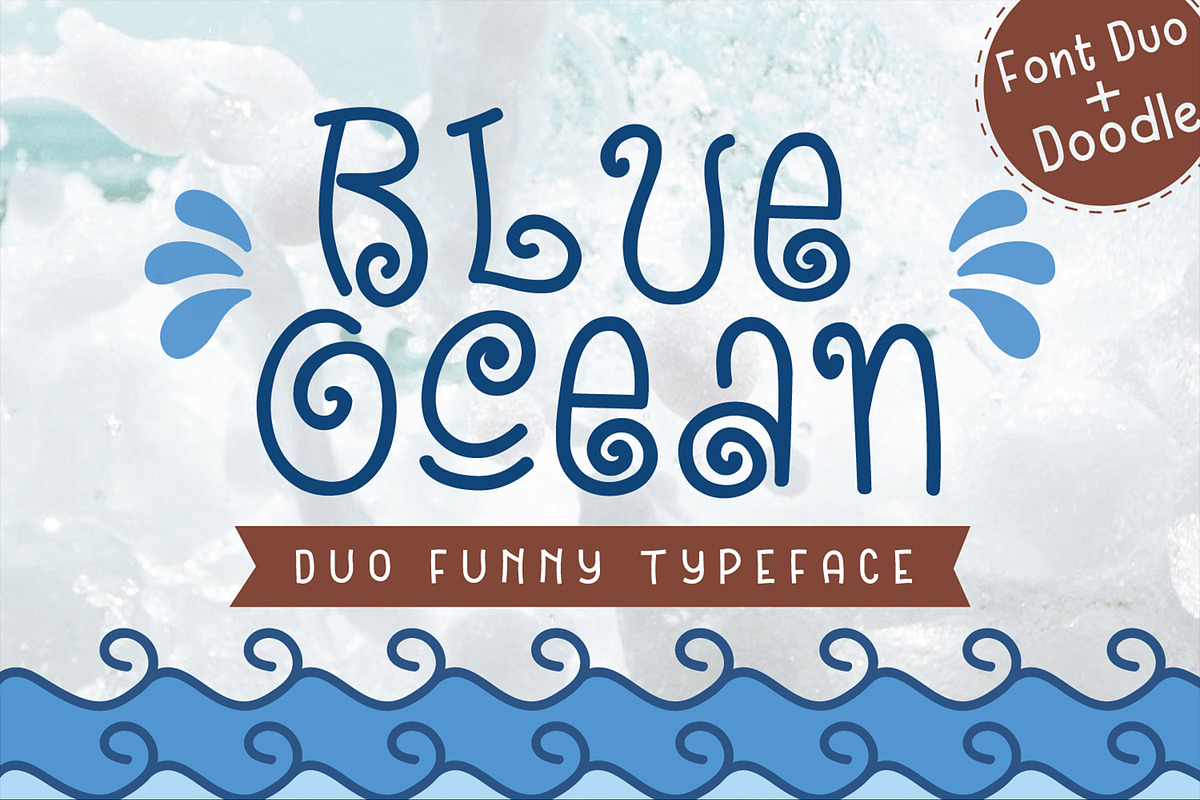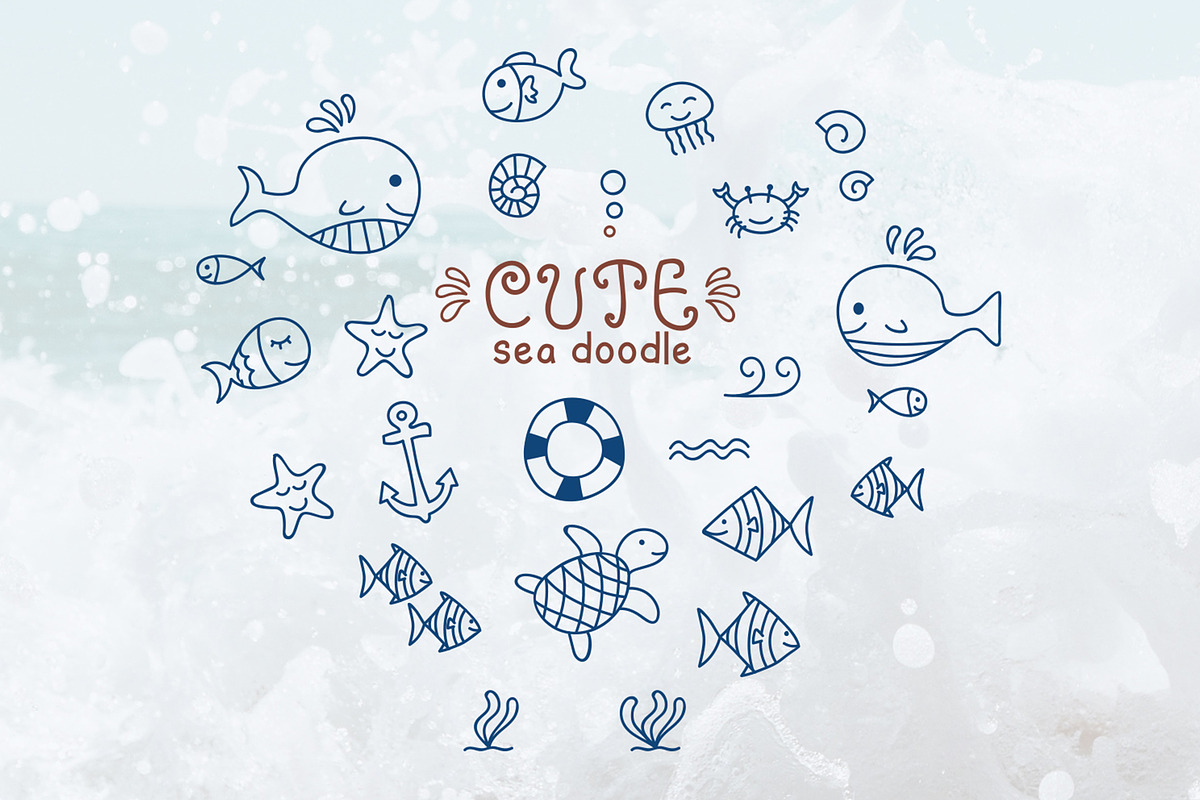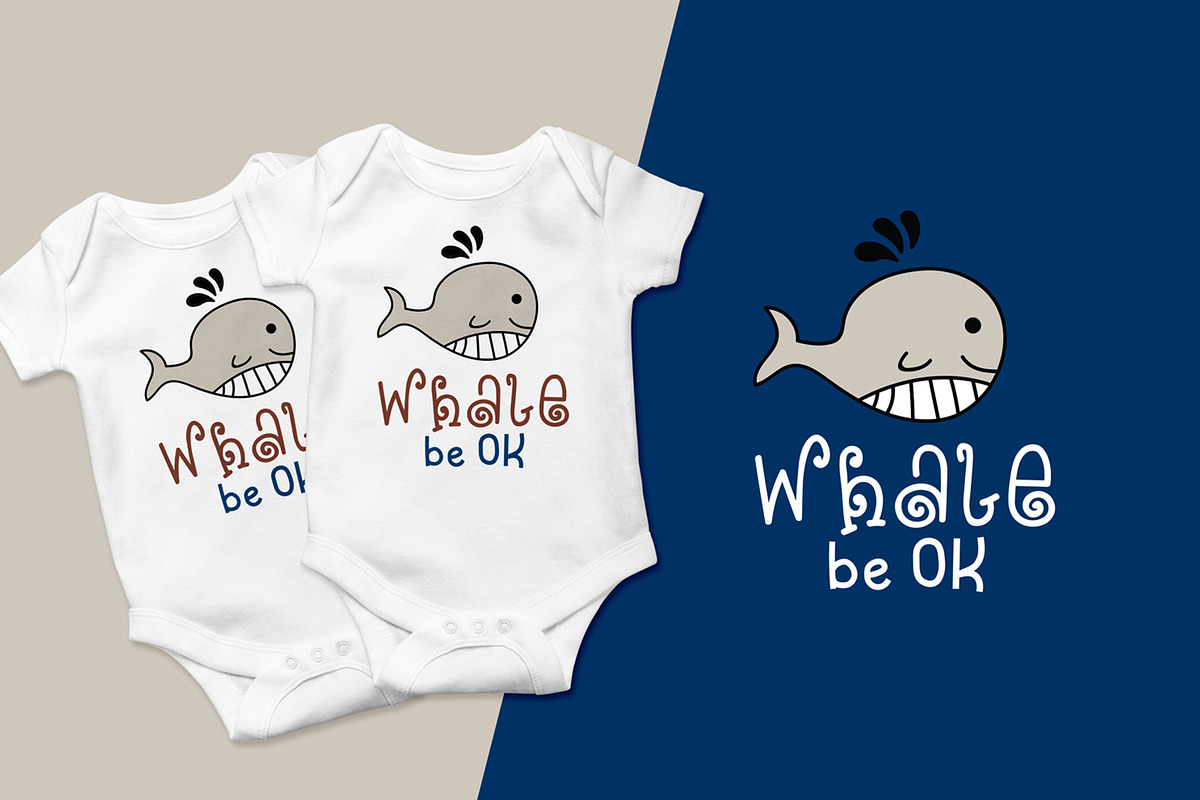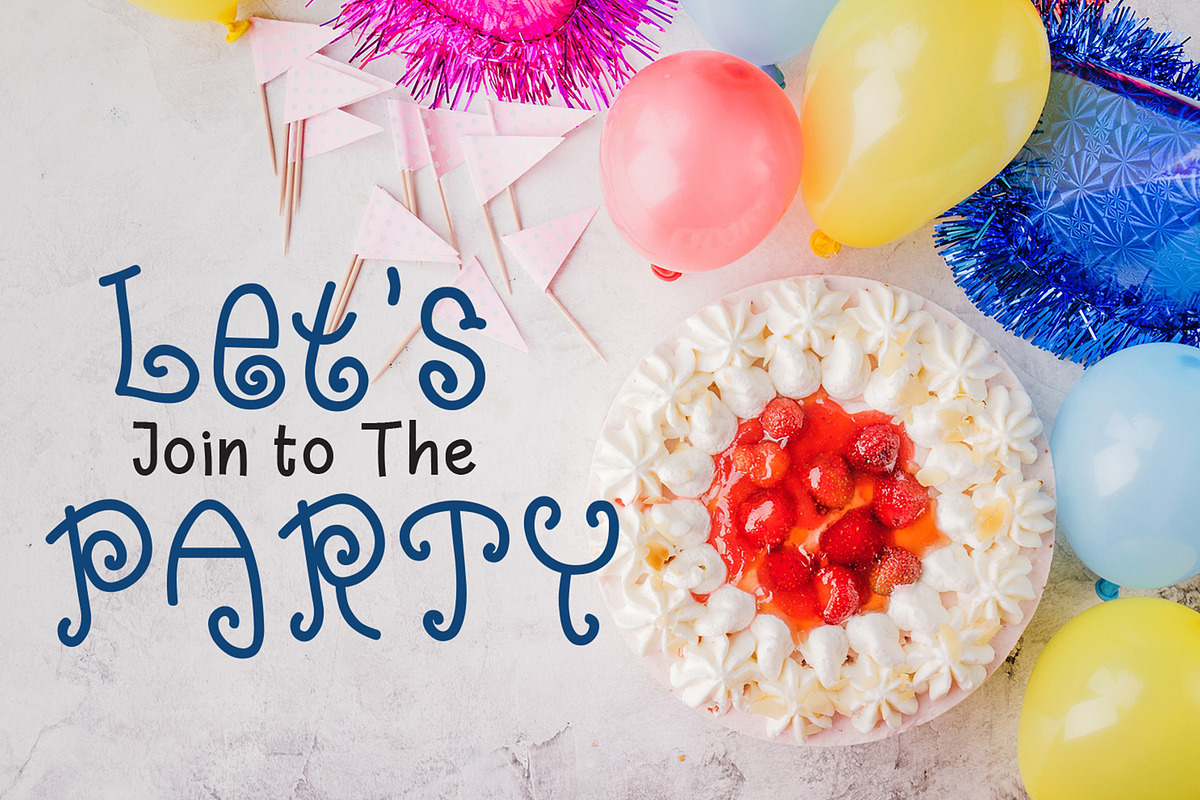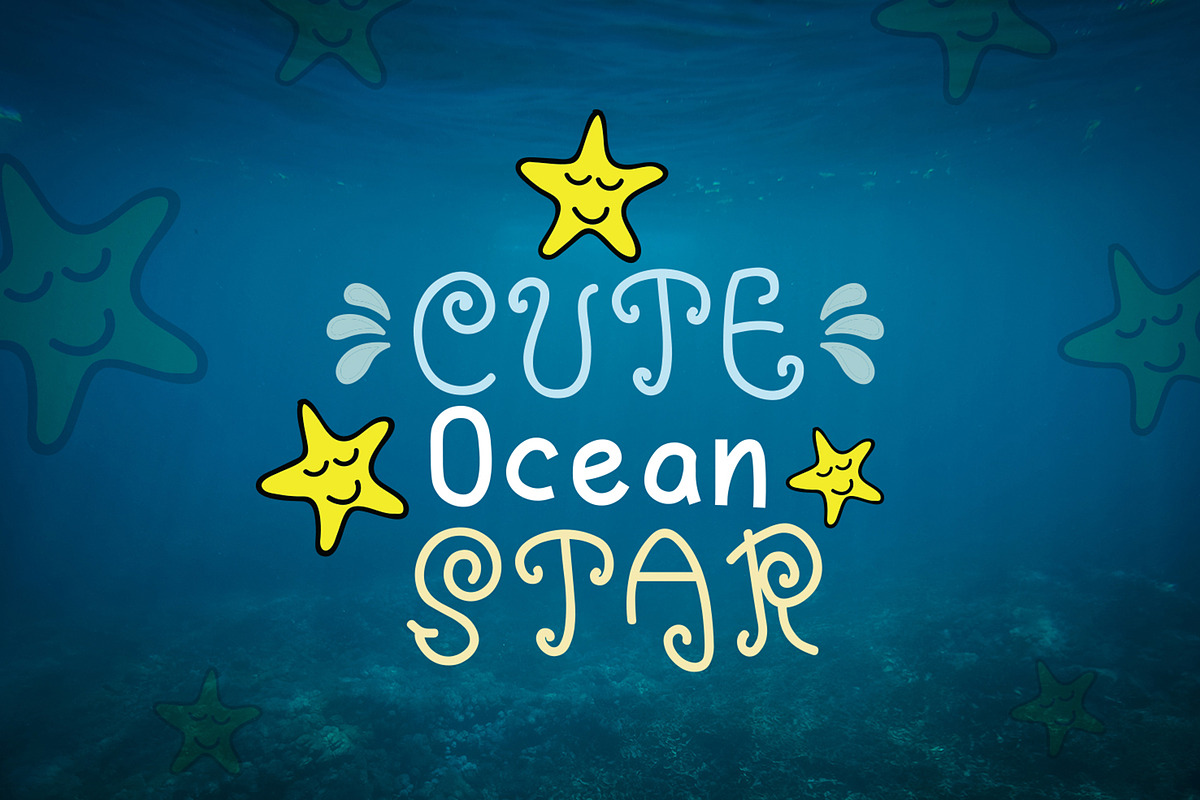
Blue Ocean - Cute Baby Font Duo
Blue Ocean Cute Baby Font Duo is a fun display font. It comes with three playful styles and beautiful doodles as a bonus.
It can be used for any design related to baby’s, kids and every other design that needs a fun, child like look!
Blue Ocean - Cute Baby Font Duo by LetterJos fits naturally into Branding, posters, packaging, typography.